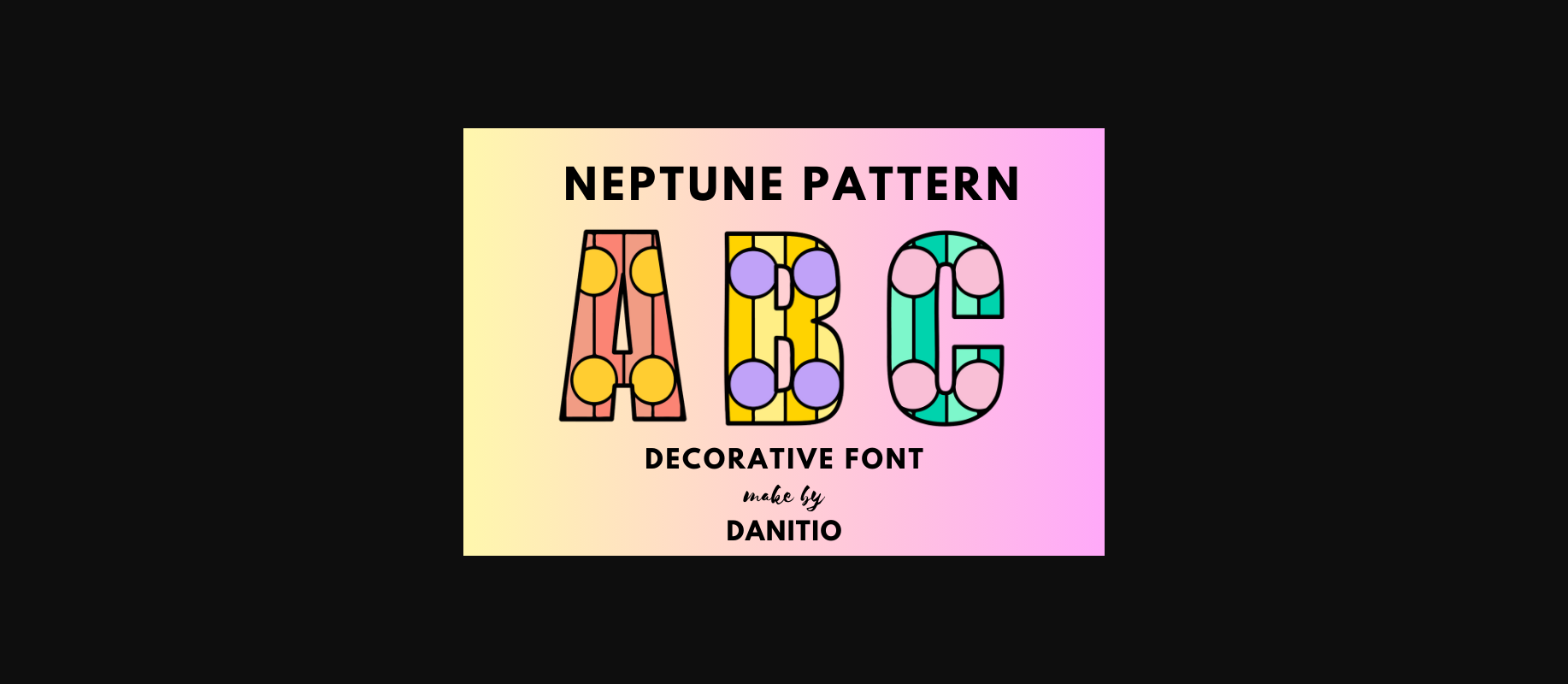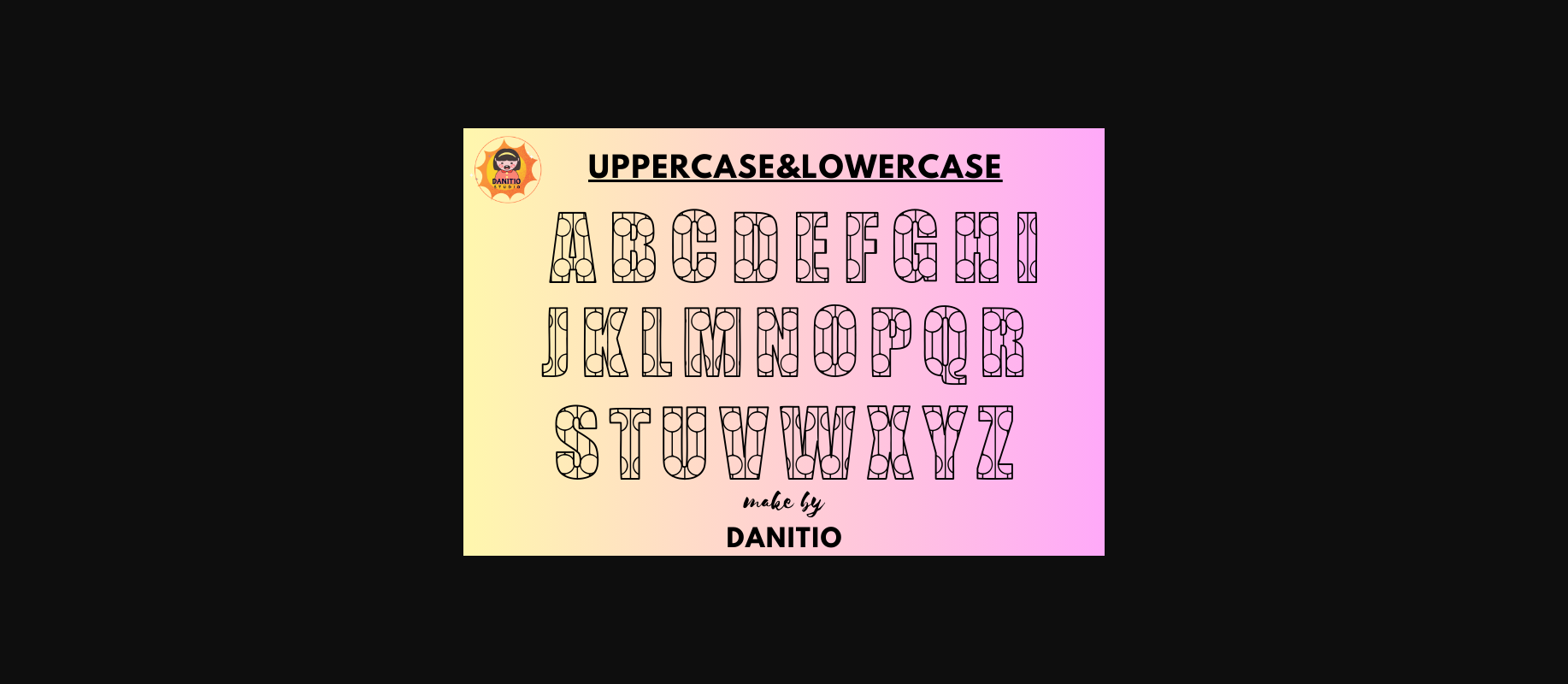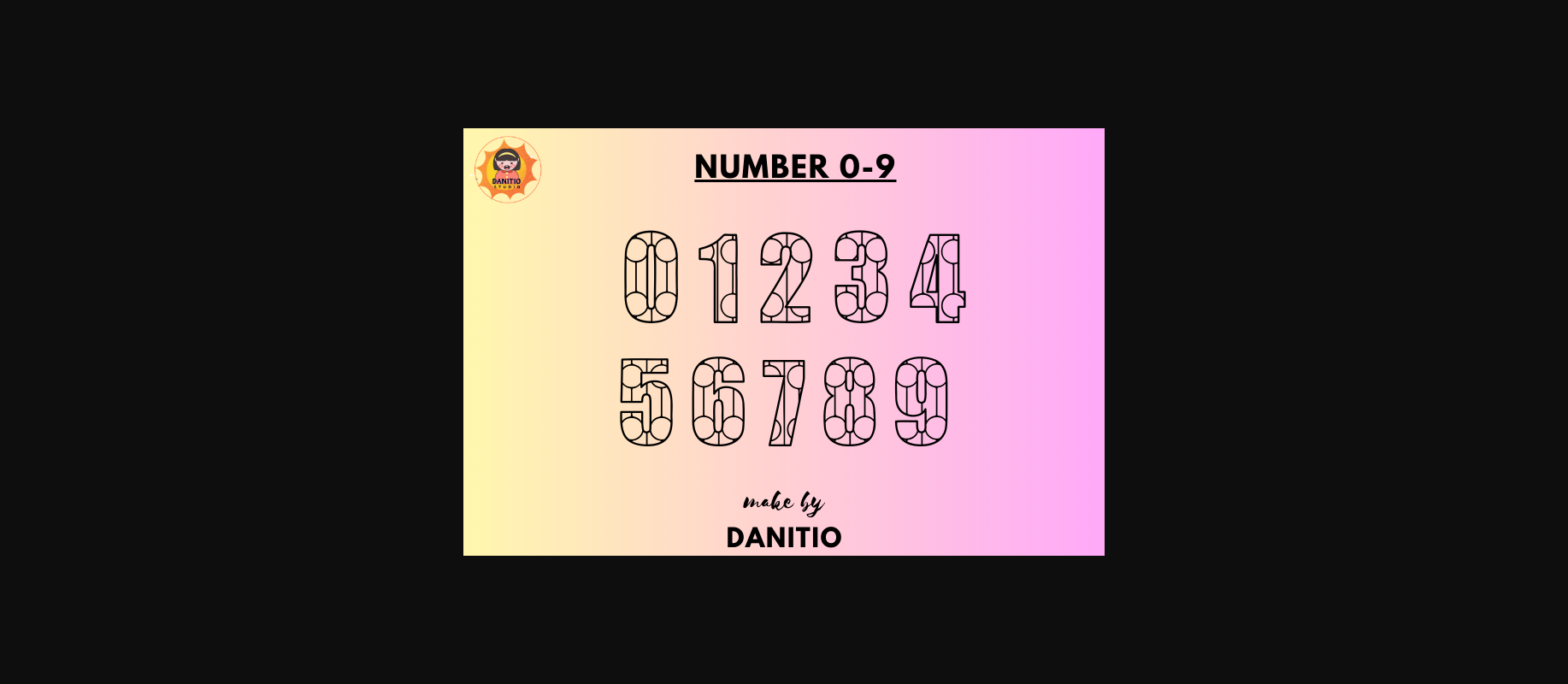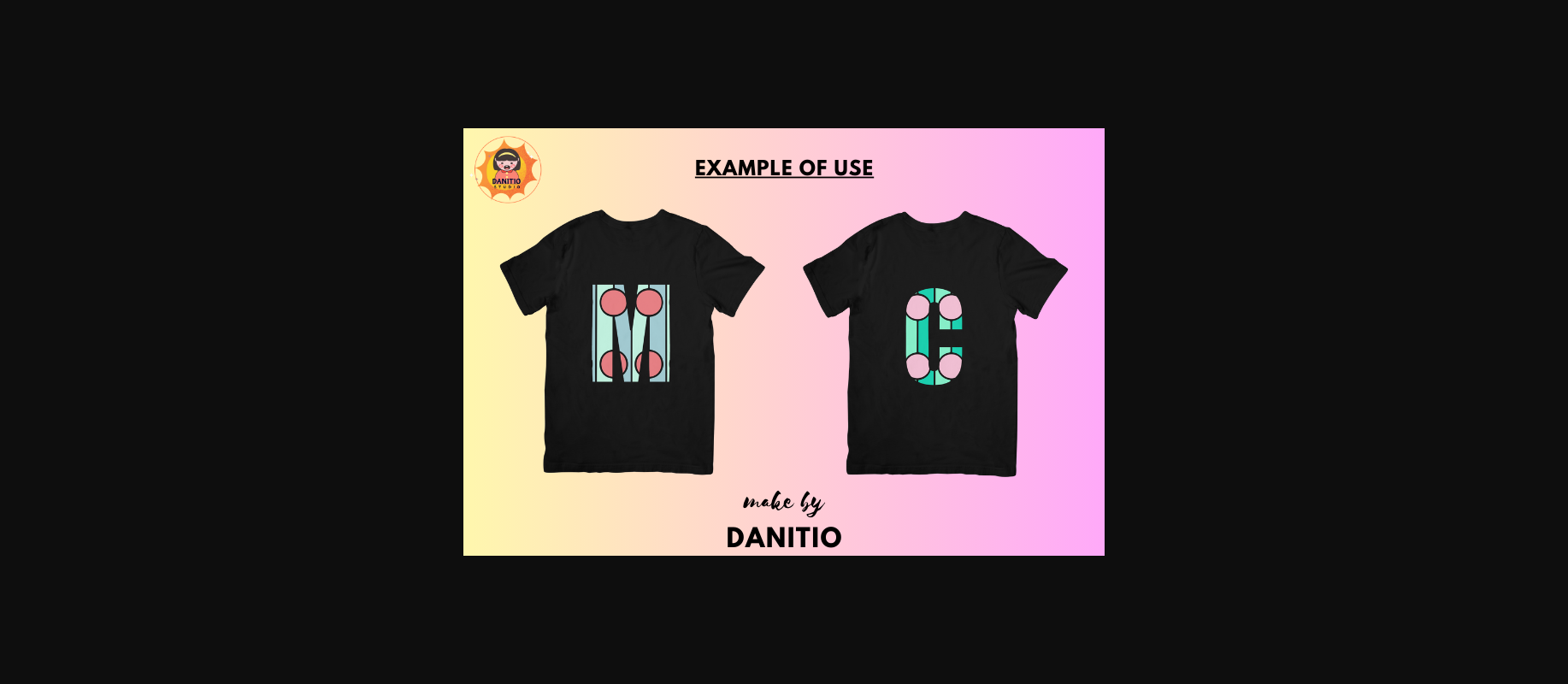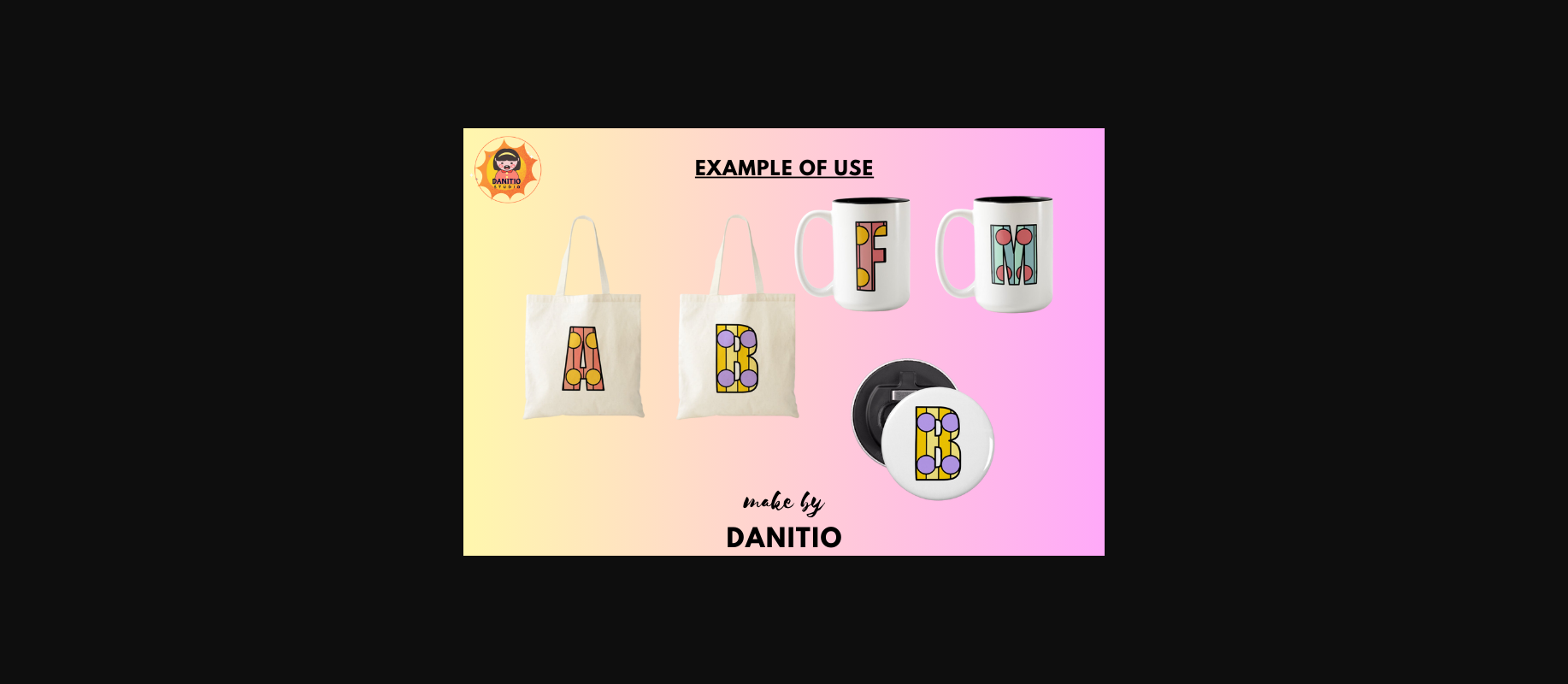
About Neptune Font
Neptune Pattern is a decorative font that combines geometric shapes, circles, squares, and letters arranged in an alternating pattern. which makes any design Looks cool and modern Suitable for various products that you think are appropriate, such as invitation cards, stationery, mugs, tote bags, pillows, phone cases, or party decorations. I hope you enjoy my fonts.